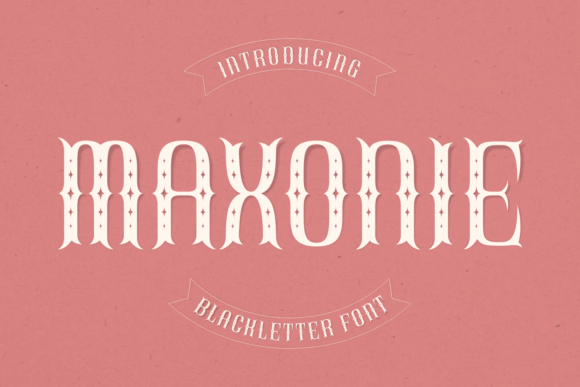
Behold, the grand Maxonie Font, a majestic creation from the esteemed Jasm of 7NTypes! This font exudes pure audacity, projecting an air of confidence and strength that will capture your audience's attention. Its blackletter charm adds a touch of mystique and allure, reminiscent of ancient manuscripts and tales of yore. It is a captivating font, designed to make a statement.
Maxonie is not just a font; it's an experience. Its bold, cool, and assertive nature commands attention, demanding to be seen and admired. Imagine your designs adorned with Maxonie, the perfect font for posters, flyers, and prints. It's the ideal choice for conveying a message that's both powerful and unforgettable.
Maxonie's versatility knows no bounds. Unleash your creativity and let your imagination soar as you explore its endless possibilities. Its robust and adaptable nature makes it suitable for a wide range of projects, from vintage-inspired designs to modern and contemporary creations. It harmonizes seamlessly with various design aesthetics, adding a touch of intrigue and sophistication to each project.
With Maxonie, you'll craft designs that tell captivating stories. Whether it's a poster that transports viewers to a magical realm or a flyer that ignites their passions, Maxonie's inherent magic will captivate and enchant. It's the perfect font for storybooks, evoking a sense of wonder and imagination that will leave readers spellbound.